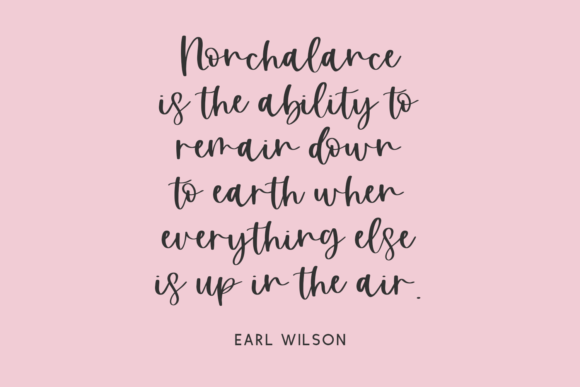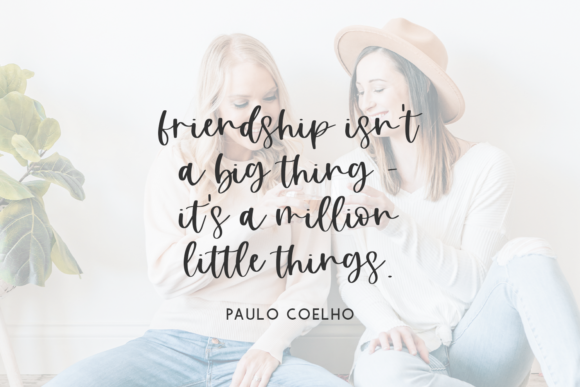
Nonchalant Script Font
db-ku.com - Script & Handwritten -- Nonchalant Script is a chic, refined script font that emanates sophistication and elegance. Its stylish alternates and ligatures make this font the perfect match for any project.